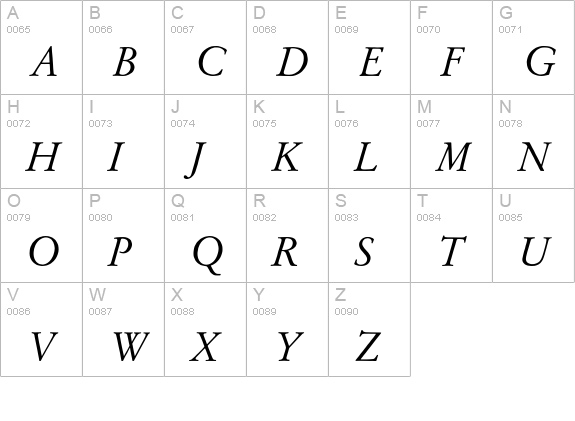
Garamond* Italic Font Details
Garamond* Italic is a distinctive, italic variant in the Garamond* typeface family \xE2\x80\x94 well suited to design and typography projects.
Garamond Italic font embodies elegance and sophistication, with its delicate slant and graceful curves. The italic style of this timeless typeface adds a touch of flair and refinement to any design project. Known for its readability and classic appeal, Garamond Italic is perfect for conveying a sense of tradition and prestige. This font is available for free download at FontsMarket.com, making it accessible to all designers and creatives looking to elevate their work with a touch of timeless elegance. Whether used for print materials, digital content, or branding projects, Garamond Italic is a versatile choice that never goes out of style. Experience the beauty and versatility of Garamond Italic today, and add a touch of sophistication to your designs.